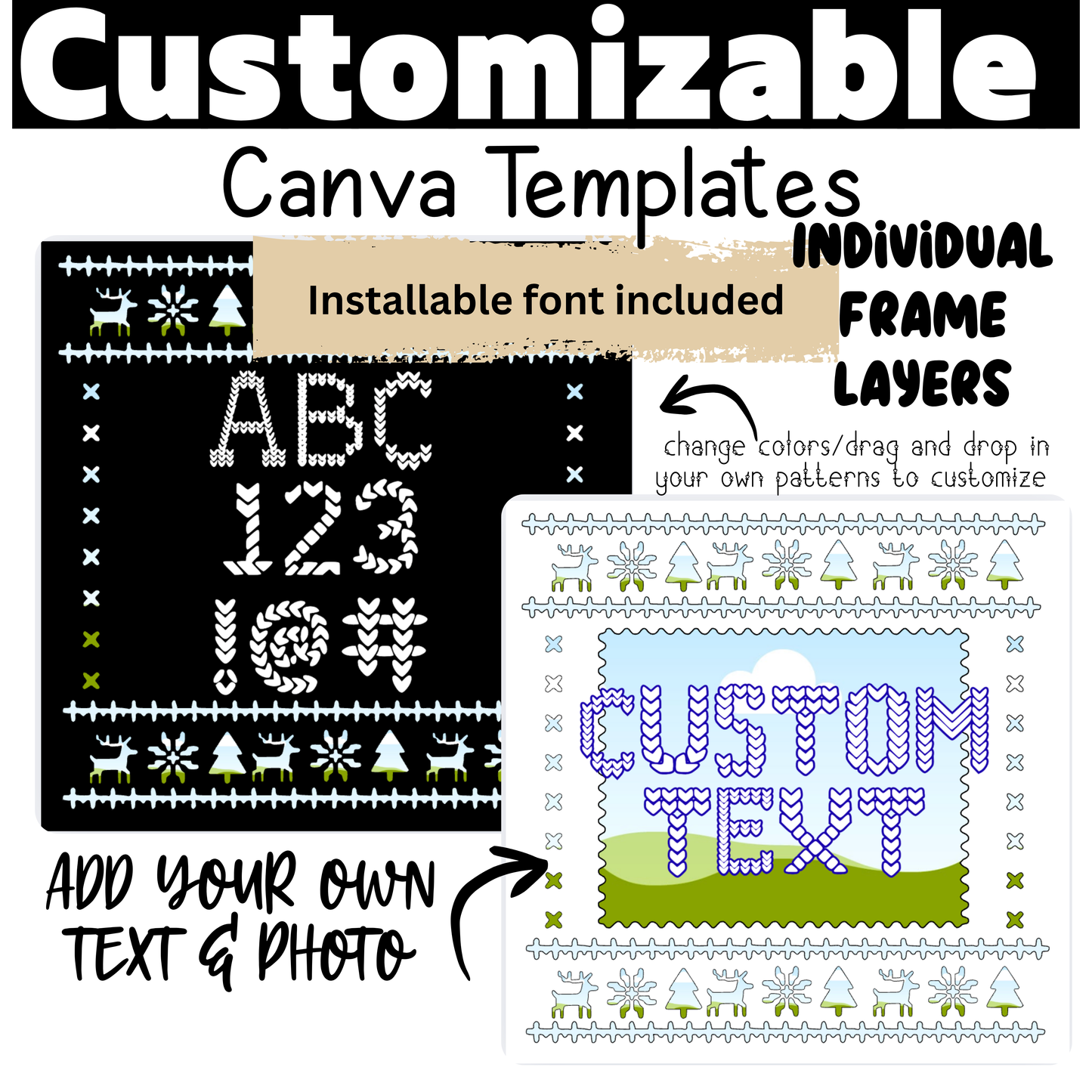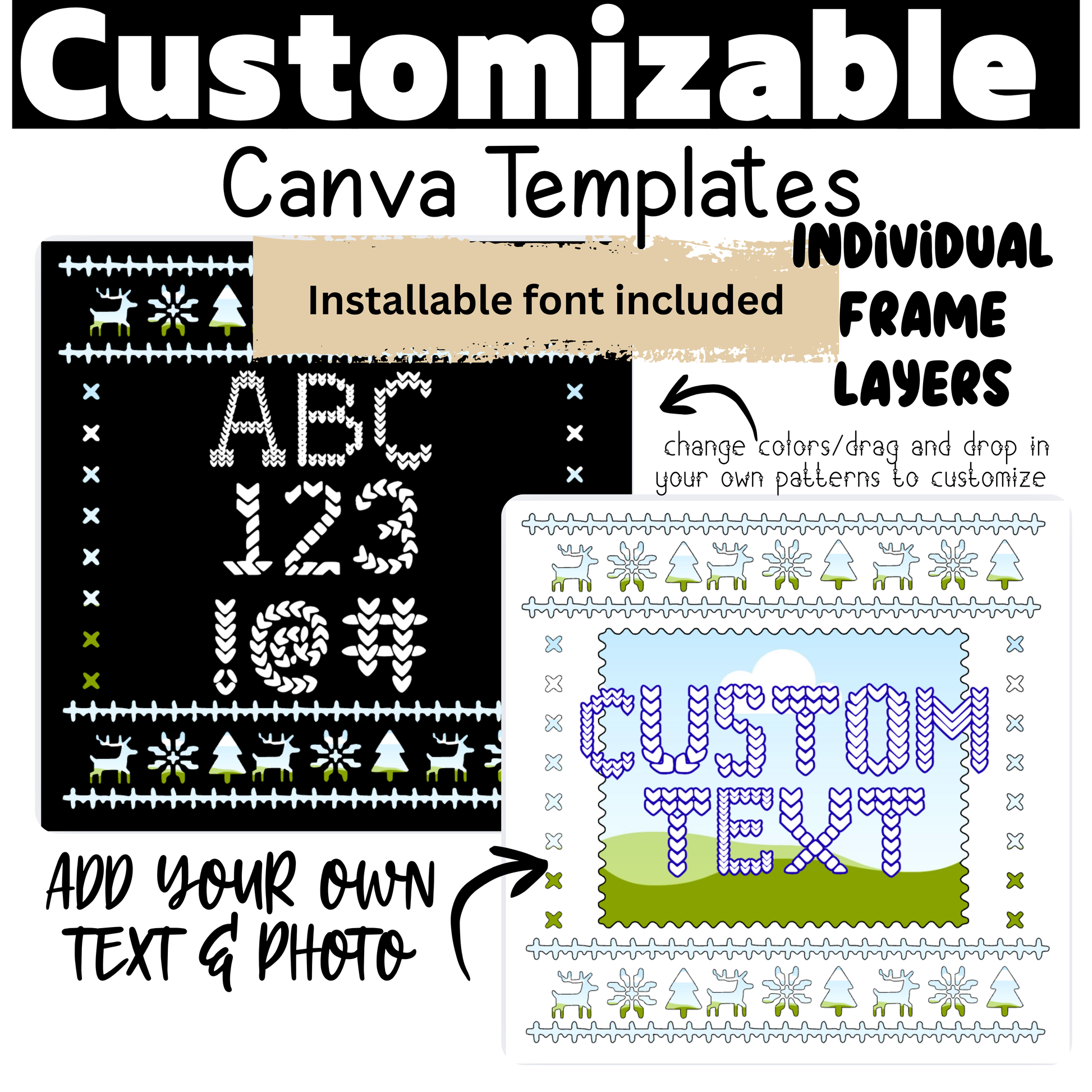
Ugly Christmas Sweater Canva Template + Installable OTF Font
Get festive and creative with this Ugly Christmas Sweater Canva Template — perfect for turning your own ideas into cozy, holiday-ready designs! 🎅 This editable Canva layout includes a knitted pixel sweater background, reindeer and snowflake details, and a matching installable OTF font that ties the whole look together.
Font gives text a true “stitched sweater” look